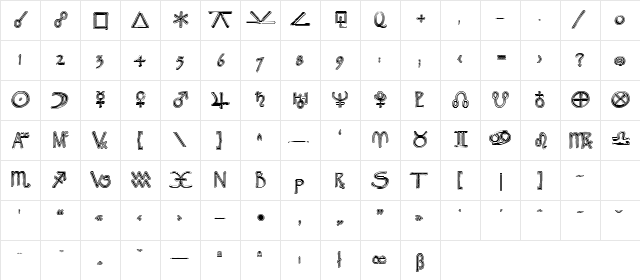
Widget ExtraBold
| Designer | Jason Davies |
Design Context for Widget Typeface
Widget is a composed and adaptable typeface that performs quietly and consistently across a wide range of design contexts. Its bold stroke weight gives it real presence on the page.